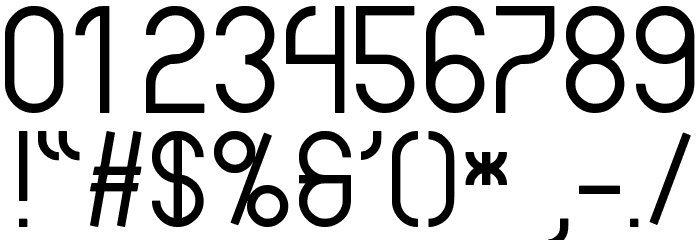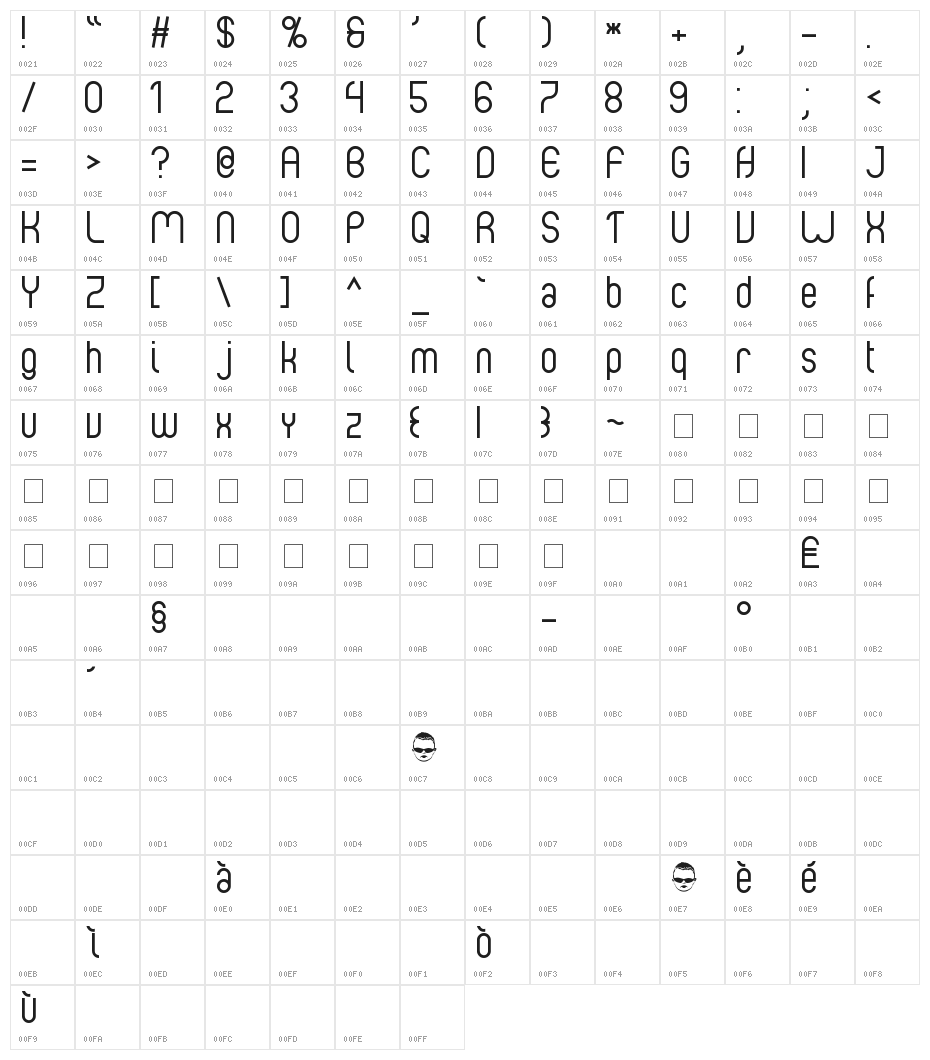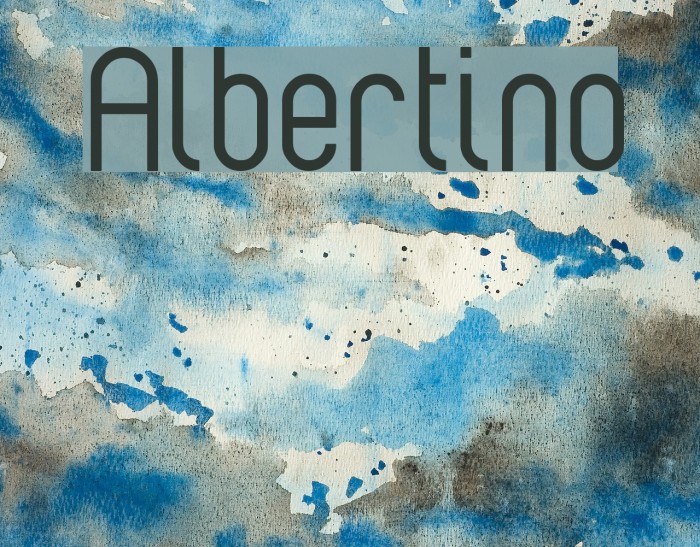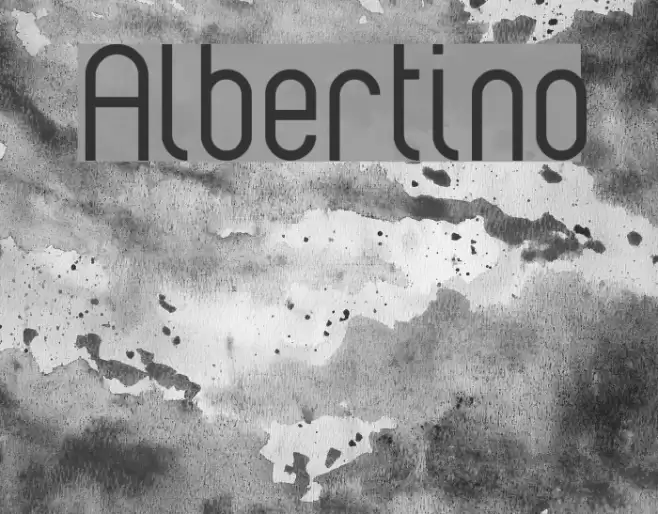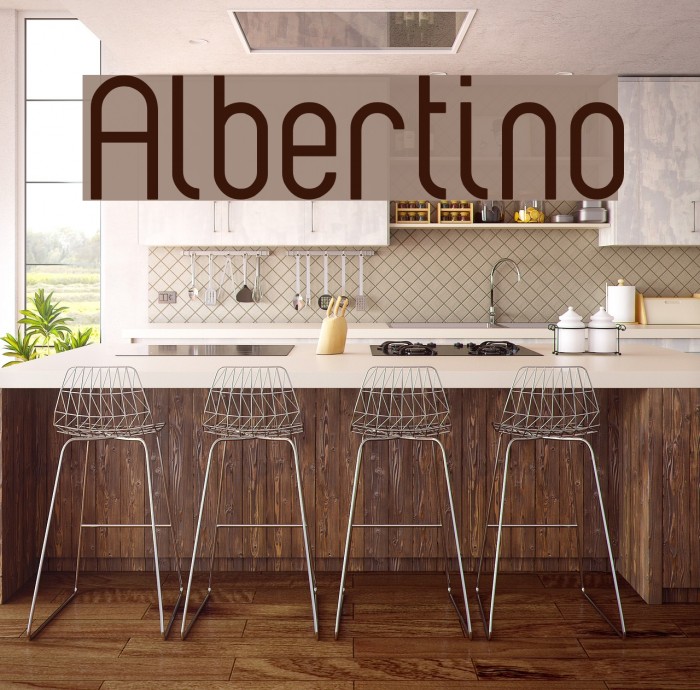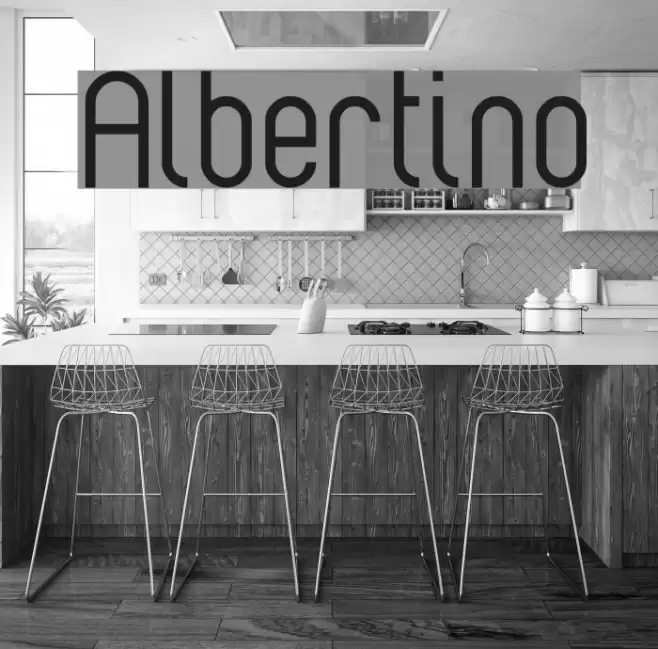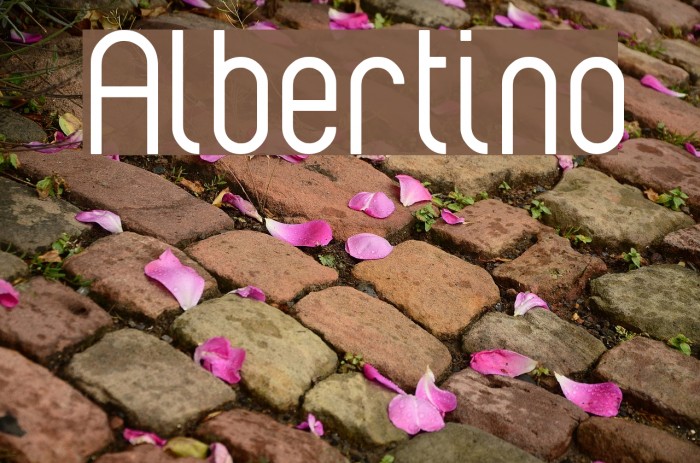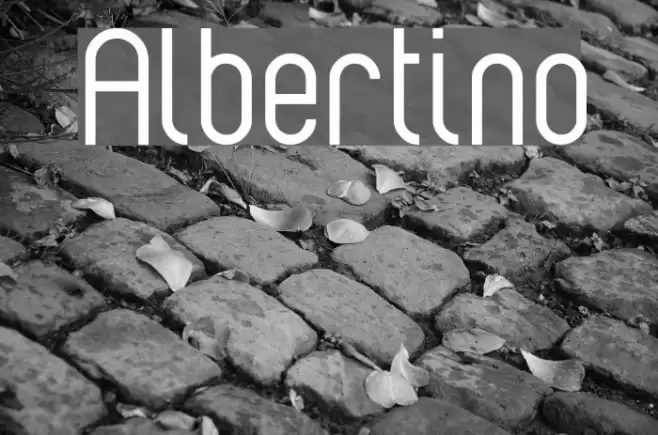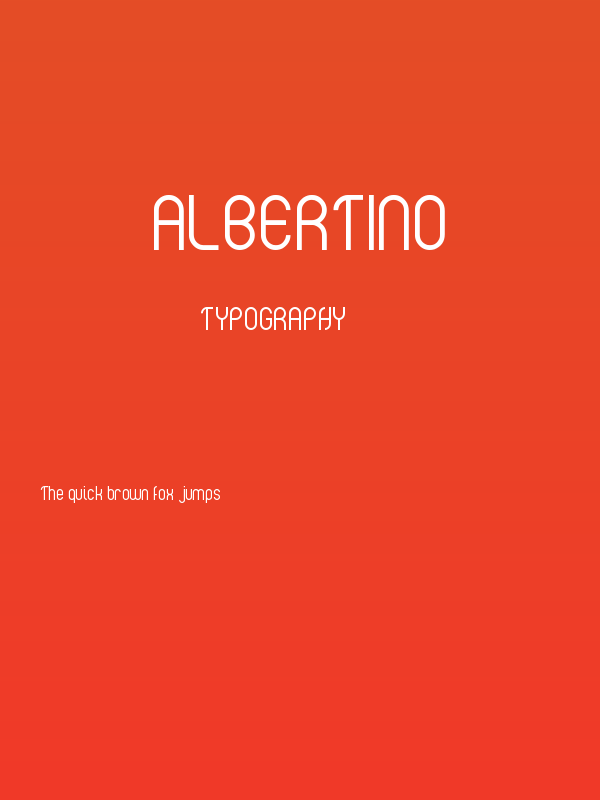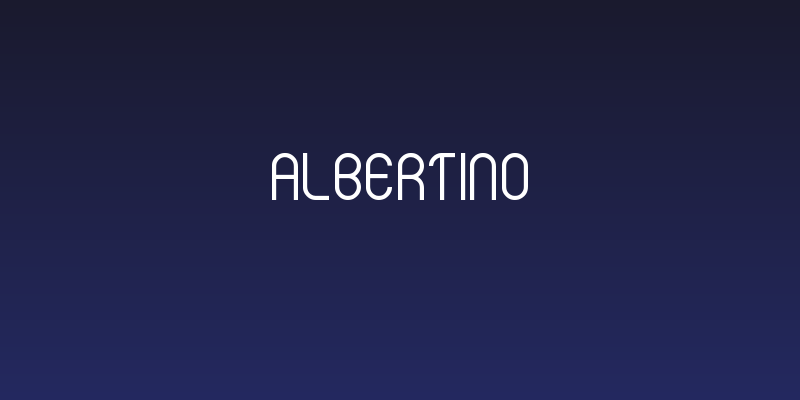
Albertino Font
Albertino Description
This font features a modern and geometric design with clean lines and rounded edges. The uppercase letters are uniform in height, creating a cohesive and structured appearance. The lowercase letters maintain a similar geometric style, with some characters like 'a' and 'g' having a distinctive looped design. The numerals are bold and clear, making them easily readable. Special characters are consistent with the overall style, offering a harmonious look across all glyphs. The font's simplicity and clarity make it suitable for various applications, from digital interfaces to print media.
| Proposed Projects | Ideal for branding, digital interfaces, signage, and editorial design. |